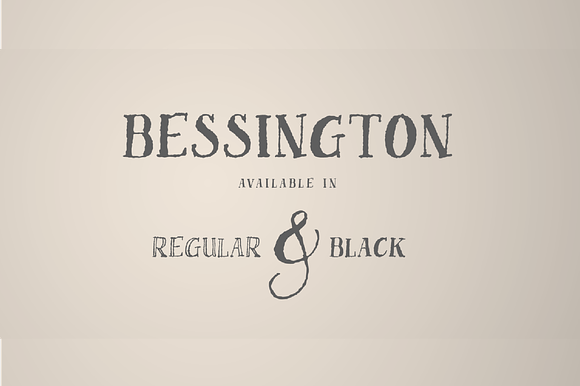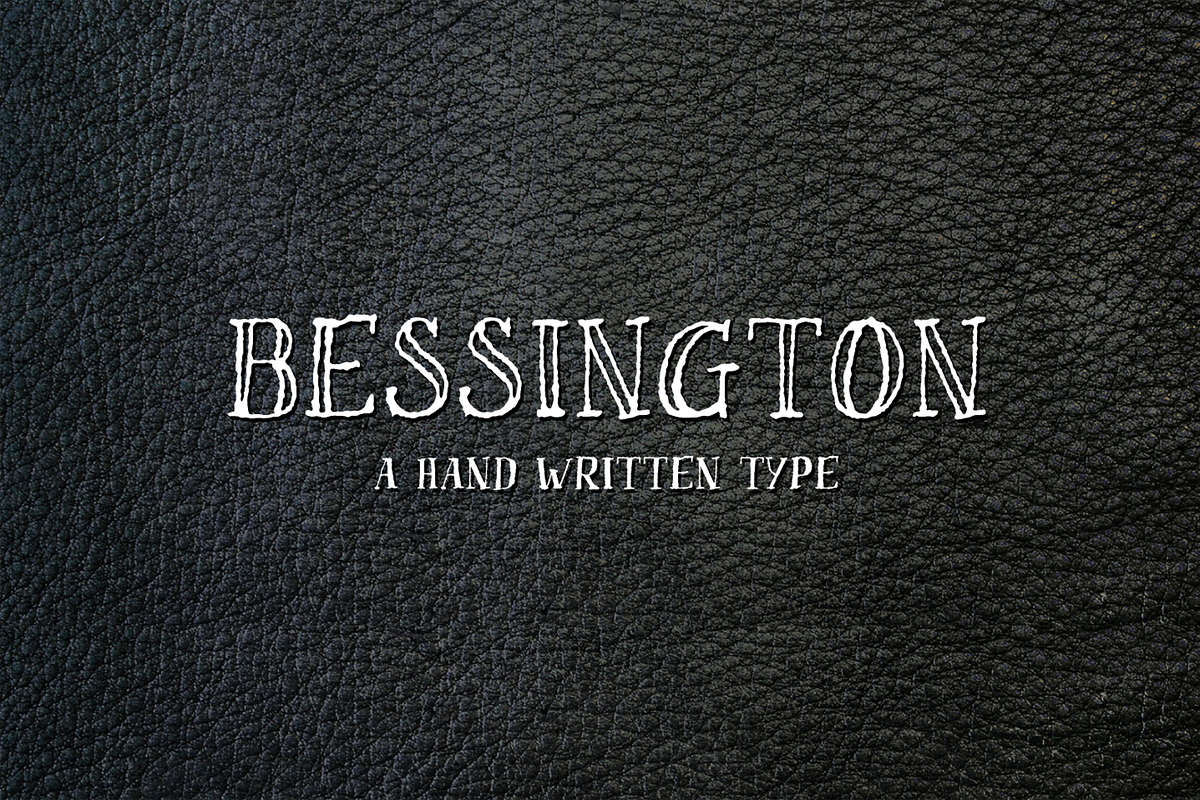
Bessington - Uppercase Display font
Introducing Bessington font by We are colt.
Bessington is a quirky rough uppercase display font, each character has been hand drawn using rich black ink on a soft paper giving it a beautifully ragged look.
Complete with hand-drawn glyphs, this is a perfect font for magazine titling, logo marks, signatures, invitations, cards, Instagram posts, and product packaging.
This font will add a really unique finish to your project.
- This set includes uppercase letters, numerals, a range of punctuation and ligatures.